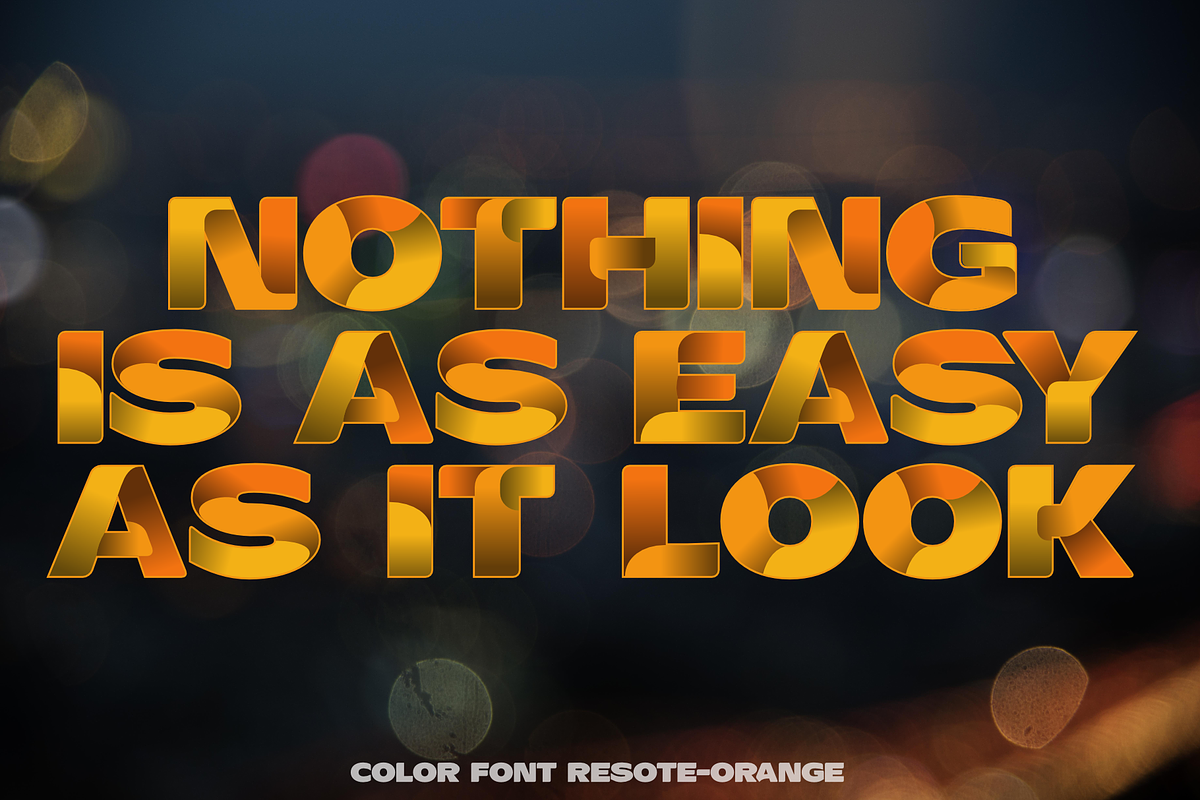
Color fonts ResotE-Fruits Free Download
ResotE-Fruits Color Font Free Download
You must purchase this font for commercial use. However, you can download ResotE-Fruits Color Font Free Download for testing purposes. ResotE-Fruits is a colorful and playful font designed to add a fresh and vibrant touch to your designs. Perfect for food-related branding, playful logos, event posters, packaging, and social media graphics, this font brings a fun, fruity aesthetic to any project.
With its bold, colorful characters, ResotE-Fruits adds a dynamic, eye-catching quality to your typography, making it ideal for projects that need to stand out with a lively, joyful vibe. Whether you're creating promotional content for a beverage brand, designing a food-related event, or adding a burst of color to your creative campaigns, this font will enhance your designs with its vibrant and playful nature.